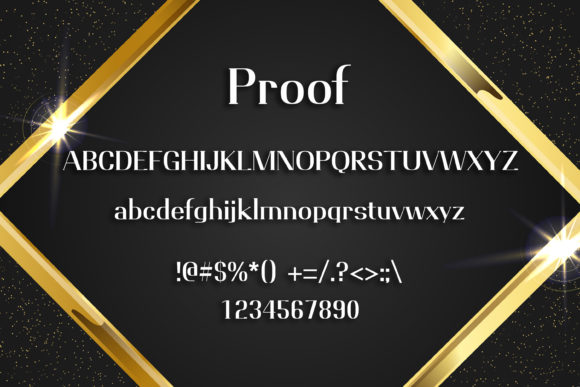
Introduction to Proof Font
Proof is a bold and strong display font.
Add this freshly shaped font to each of your favorite ideas and notice how they stand out .
Key Features of Proof Font
Why Choose Proof Font?
Proof Font offers exceptional quality and versatility, making it a valuable addition to your design toolkit. Whether you’re creating for personal projects or commercial use, Proof Font delivers professional results.